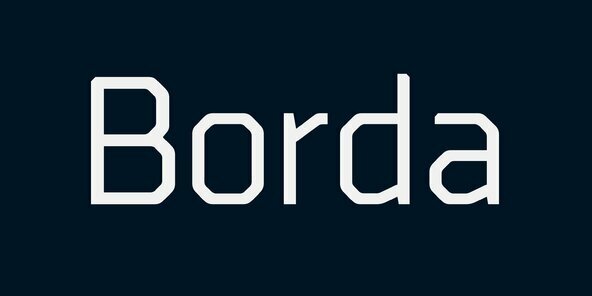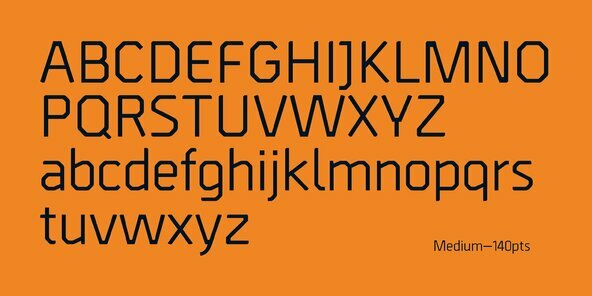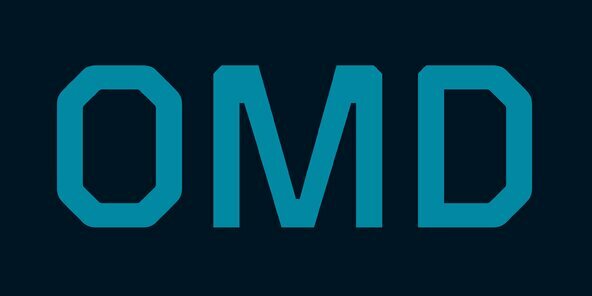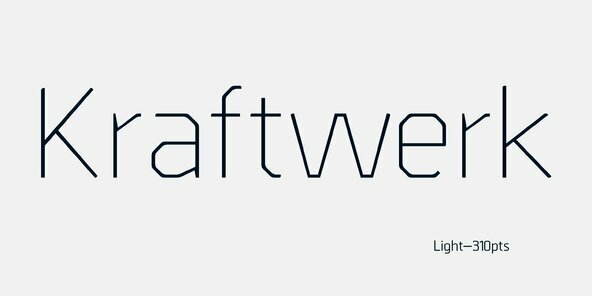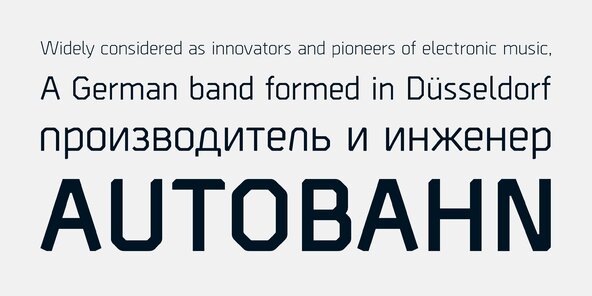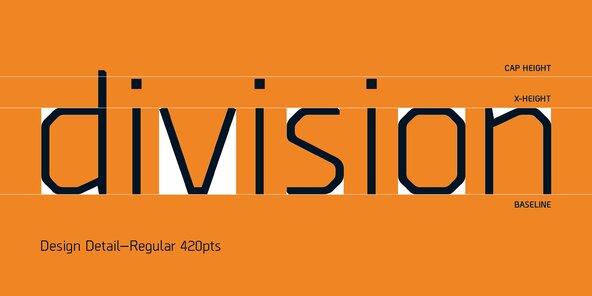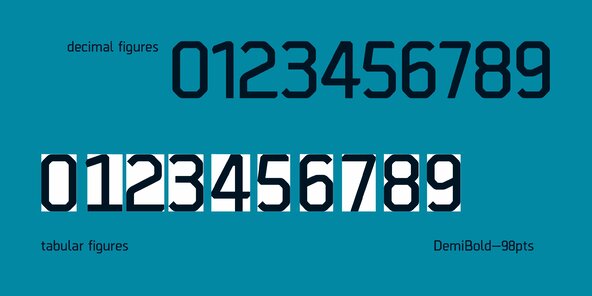
A carefully drawn geometric typeface. Exacting angles are combined with smooth corner details to form a clean, legible font with a modern appearance. The compact nature of the letterforms allows for great use of space across text layouts. Details include 6 weights with italics, an extended European character set, manually edited kerning and Euro symbol.